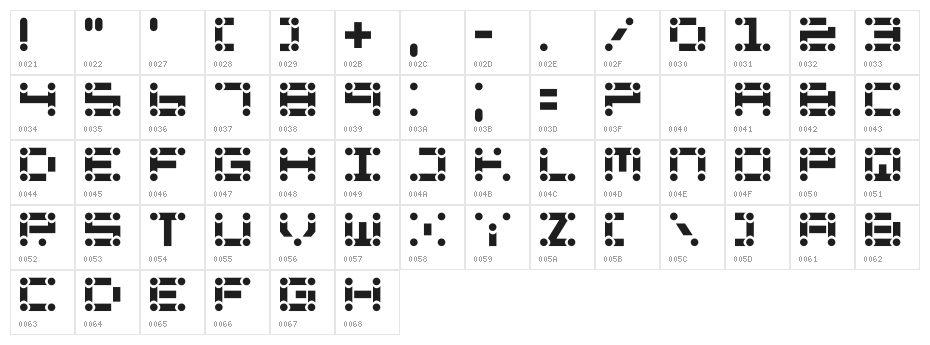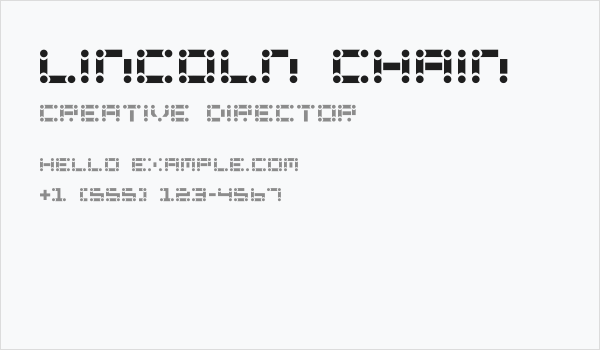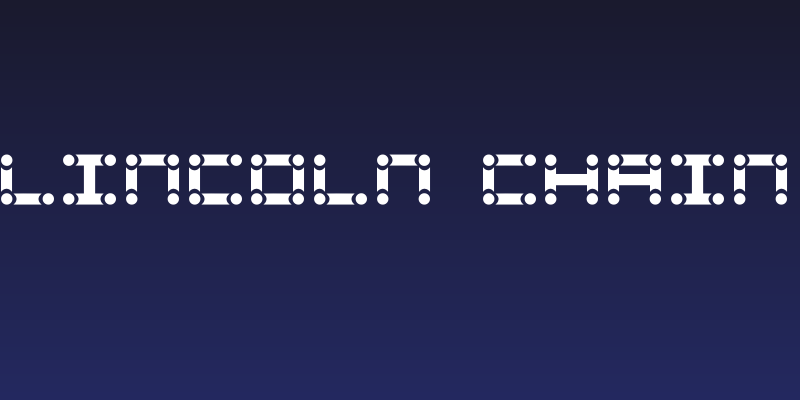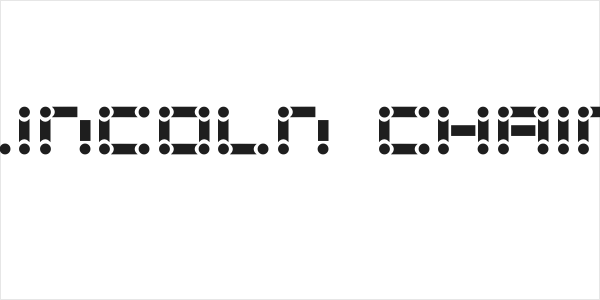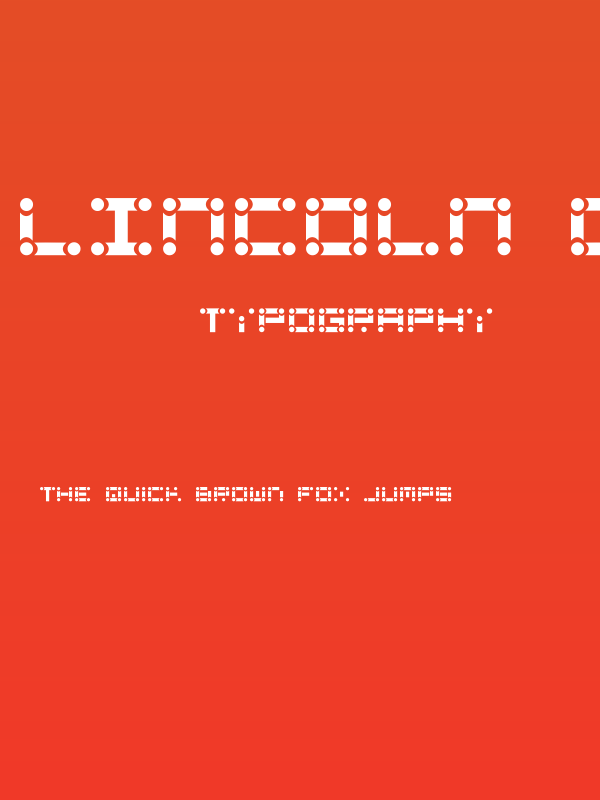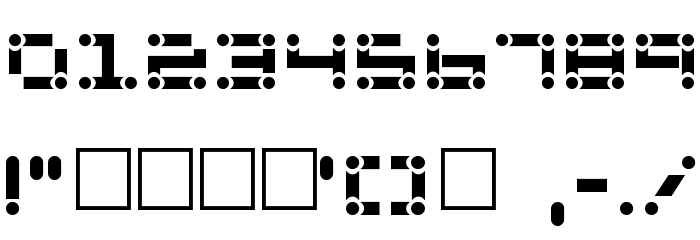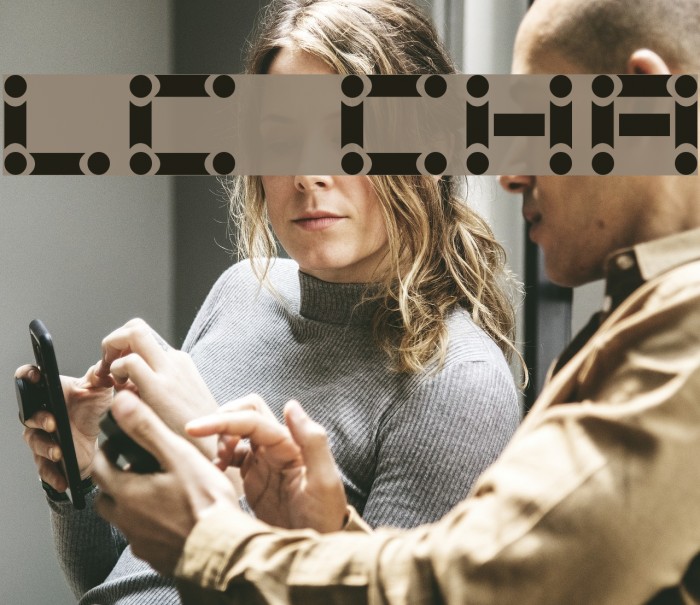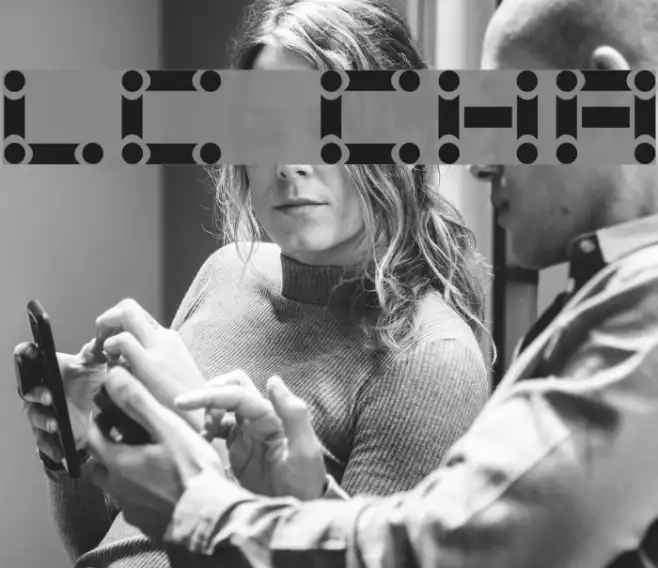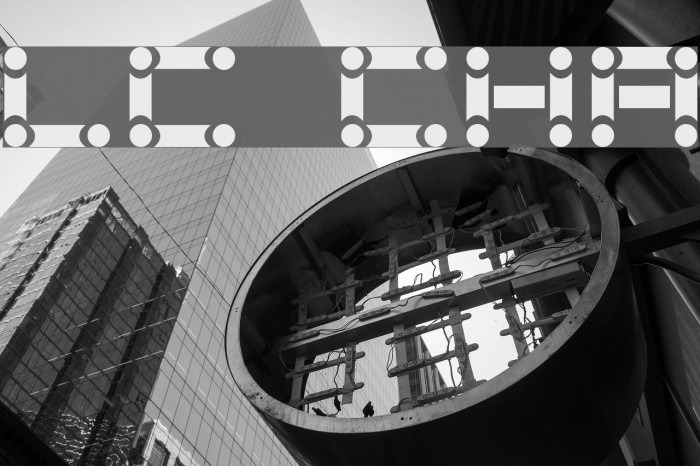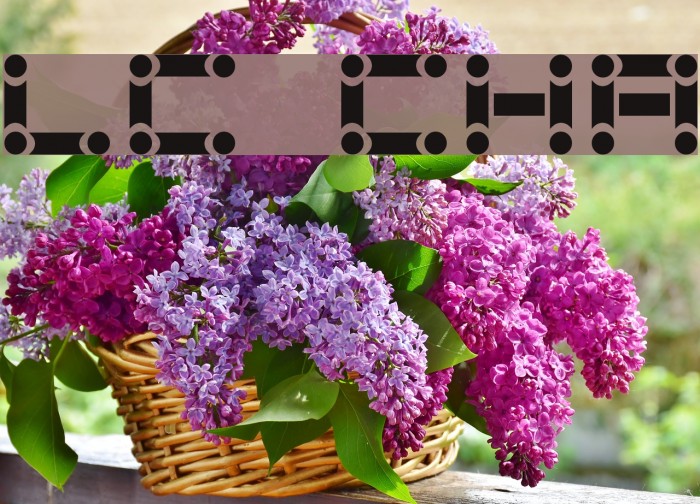
Lincoln Chain Font
Lincoln Chain Description
This font features a unique design that resembles interconnected chains, with each character formed by a series of dots and lines. The geometric structure gives it a mechanical and industrial feel, making it stand out with its bold and distinctive appearance. The uppercase and lowercase letters maintain a consistent style, while the numbers and special characters follow the same thematic design. The overall look is modern and eye-catching, suitable for projects that require a strong visual impact.
| Use Case | Logos, Headlines, Posters |
| Proposed Projects | Ideal for branding, posters, and any design work that needs a modern, industrial touch. |